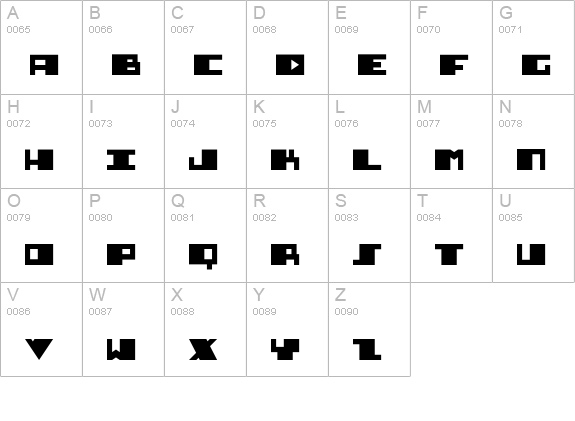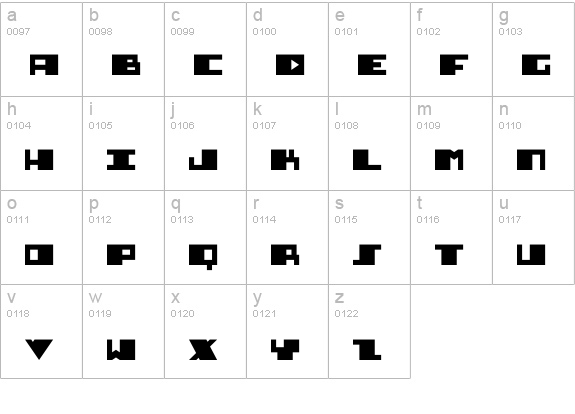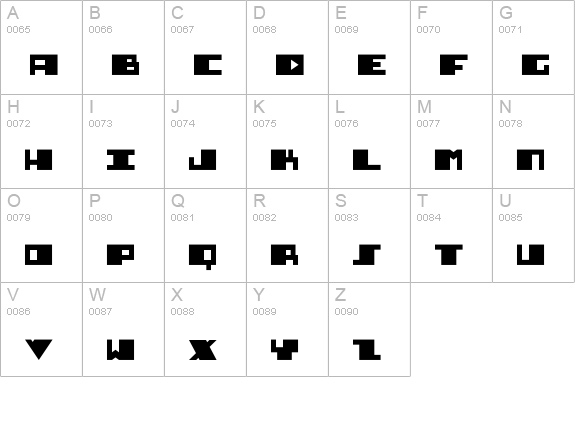
Diesel Font Details
The Diesel font is a modern and versatile typeface that exudes a sense of strength and sophistication. Its sharp edges and bold letterforms make it perfect for creating impactful designs across various projects. Whether used for headlines, logos, or branding materials, Diesel demands attention and leaves a lasting impression. What's even better is that the Diesel font is available for free download at FontsMarket.com. This means you can easily add this powerful font to your collection without any cost, allowing you to elevate your designs without breaking the bank. Don't miss out on the opportunity to enhance your projects with the striking Diesel font – download it today and unleash its full potential in your creative endeavors.